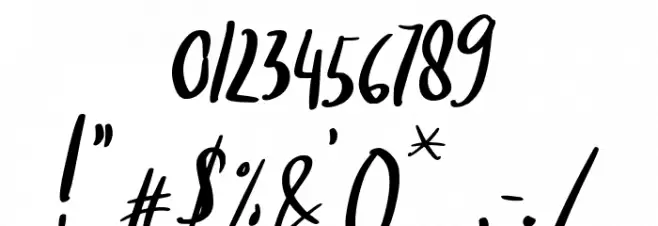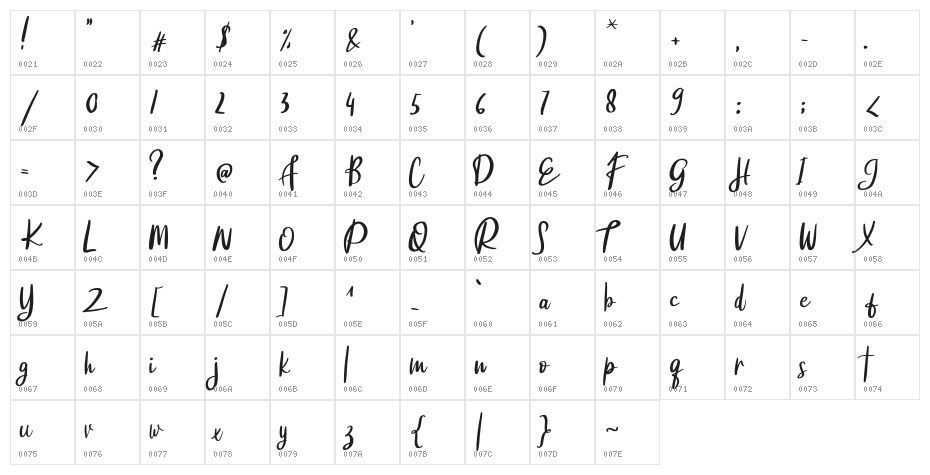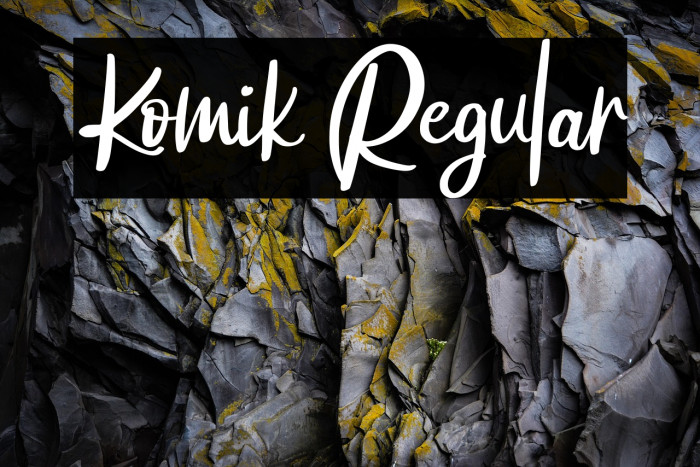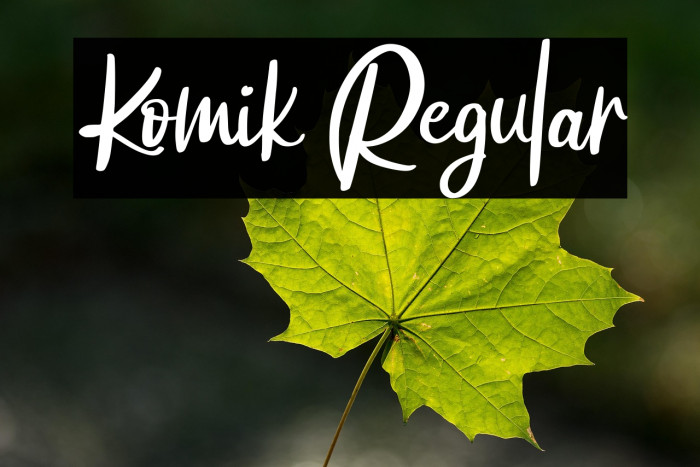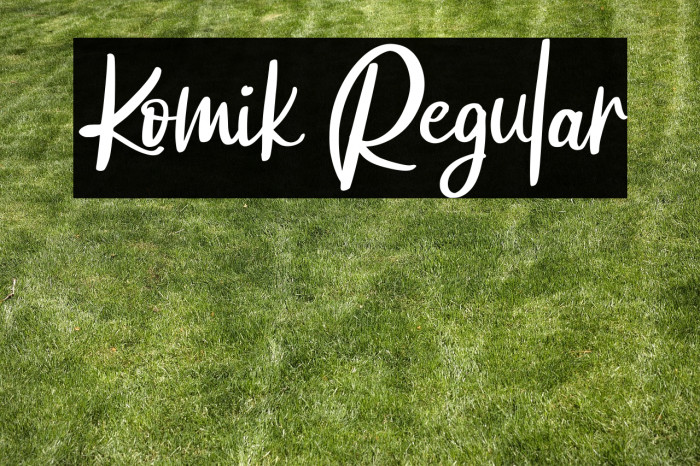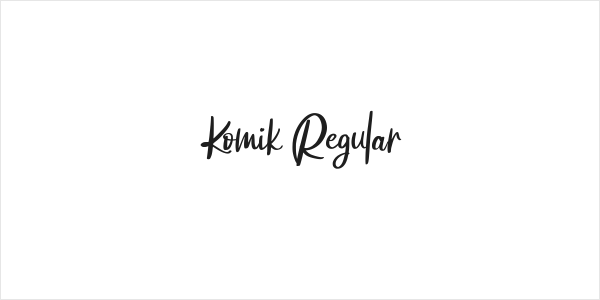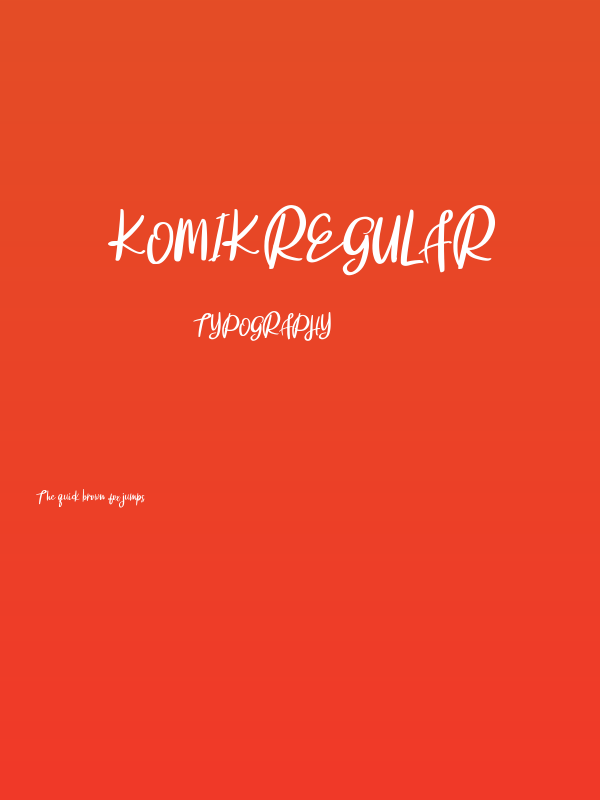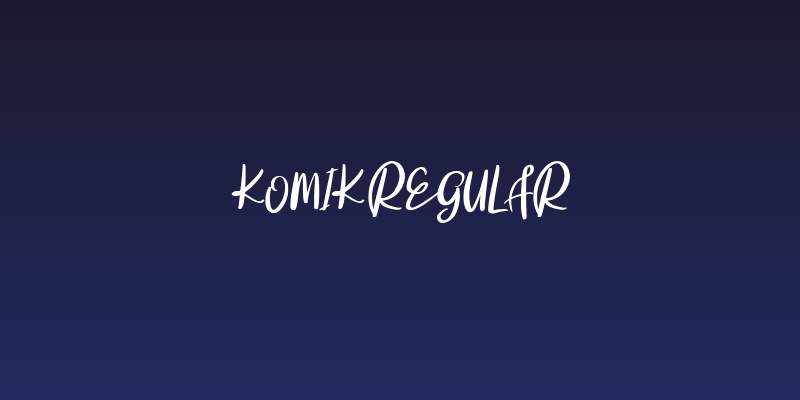
Komik Regular Font
Komik Regular Description
This playful and energetic font features a handwritten style with a casual and informal appearance. The letters are slightly slanted, adding a dynamic feel, while the strokes vary in thickness, creating a lively and engaging look. The uppercase letters are bold and prominent, while the lowercase letters maintain a consistent flow, enhancing readability. The numerals and special characters are crafted with the same whimsical touch, making them suitable for creative projects. Overall, this font exudes a sense of fun and spontaneity, perfect for designs that aim to capture attention and convey a friendly tone.
A playful, handwritten font with dynamic strokes and a casual style from Regular fonts.
- Font: Komik Regular
- Proposed Projects: Ideal for comic books, children's books, playful branding, and casual invitations.
- Overall Style: Playful
- Use Case: Headlines, Logos, Informal Text